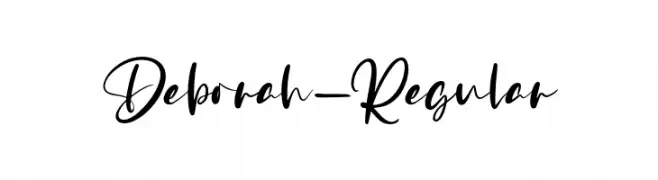
A dynamic script font with bold, sweeping strokes and a hand-drawn appearance.
A flowing, cursive font with elegant, sweeping strokes and a handwritten appearance.
A dynamic, cursive script font with bold, sweeping strokes and elegant flourishes.
A dynamic and expressive script font with fluid, sweeping strokes.
A dynamic and elegant script font with fluid, sweeping curves.
A fluid, handwritten font with elegant, sweeping strokes and a sophisticated style.
A bold, energetic script font with sweeping strokes and a lively style.
A flowing, cursive font with elegant, sweeping strokes and a handwritten appearance.
A bold, dynamic brush script font with sweeping strokes and fluid motion.
A flowing, cursive font with elegant, sweeping strokes and high contrast.